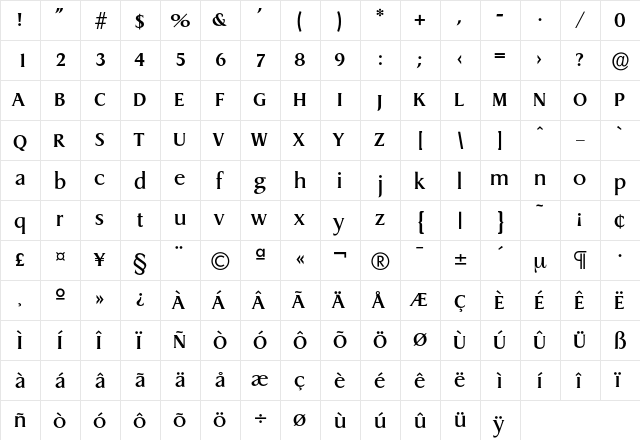
Dragon-Medium Regular
Design Context for Dragon-Medium Typeface
Dragon-Medium offers clean, dependable letterforms without strong stylistic allegiance, making it a practical choice for designers who need flexibility.